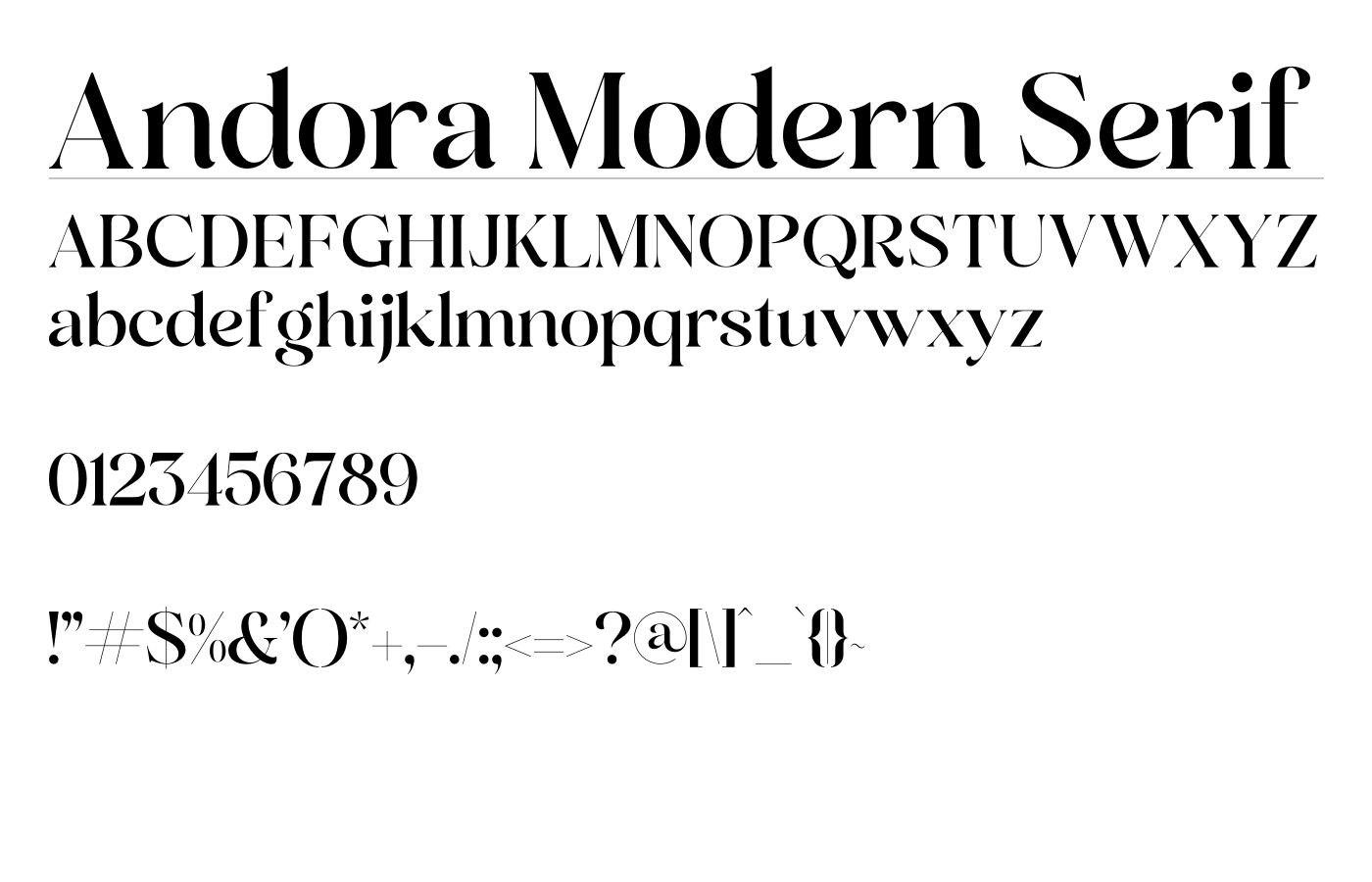
Andora Modern Serif is a sophisticated serif font featuring a high contrast between thick and thin strokes, sharp serifs, and elegant, slightly condensed letterforms that convey a refined, contemporary style. Its modern Didone influence makes it ideal for luxury branding, editorial headlines, and fashion-focused designs, where a touch of class and readability is essential. This font combines timeless elegance with modern flair, making it perfect for projects that demand a polished and stylish appearance.
Andora Modern Serif Font
About Andora Modern Serif Font